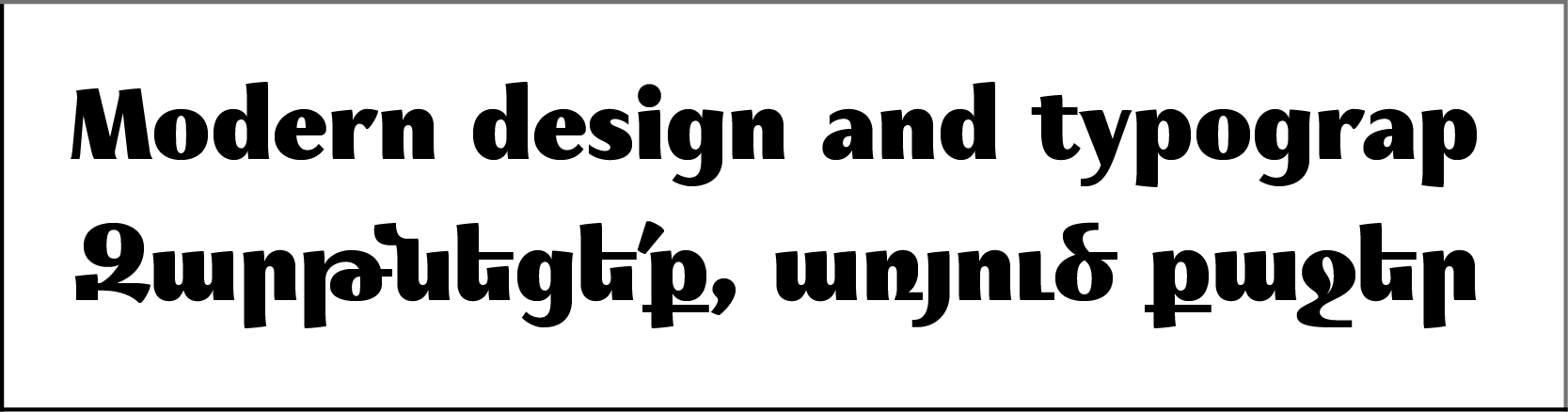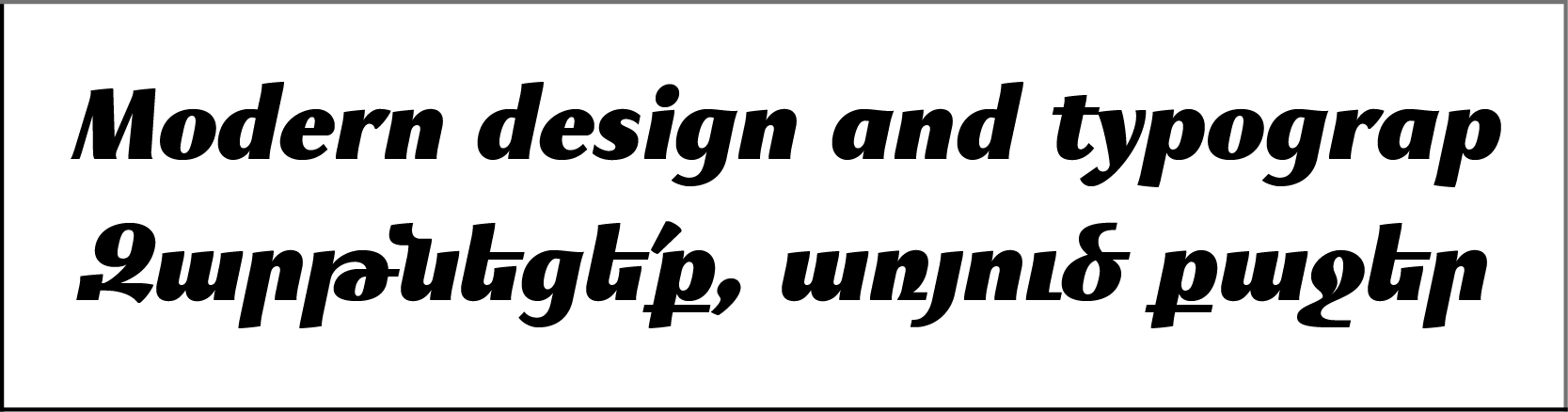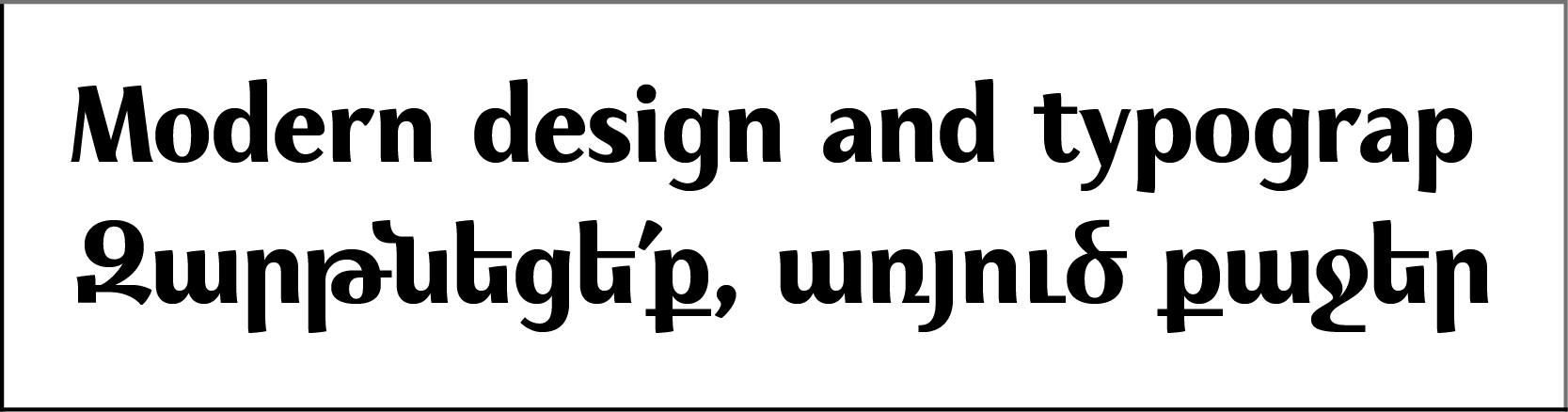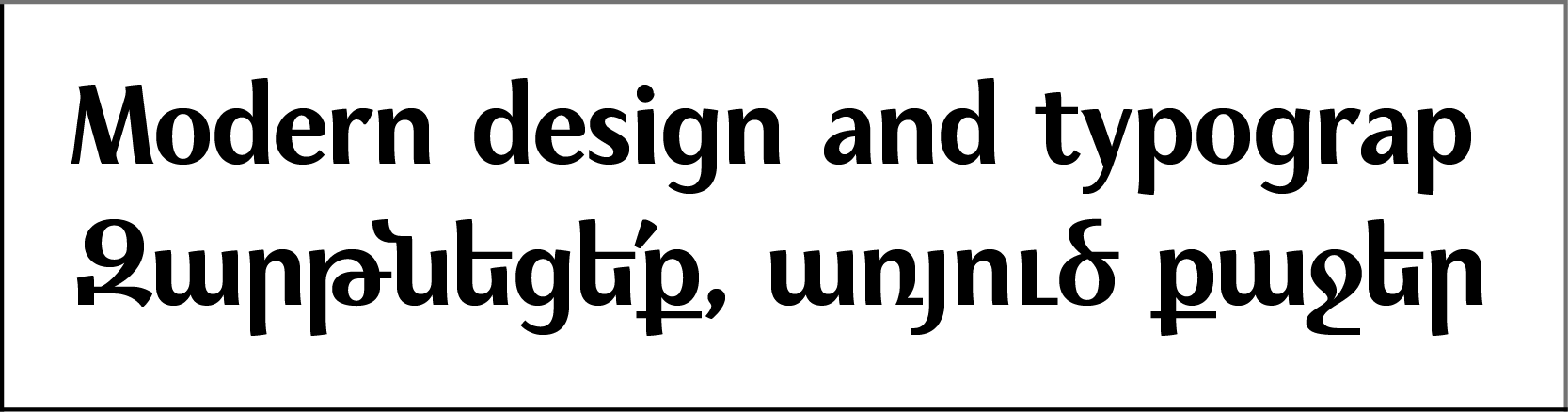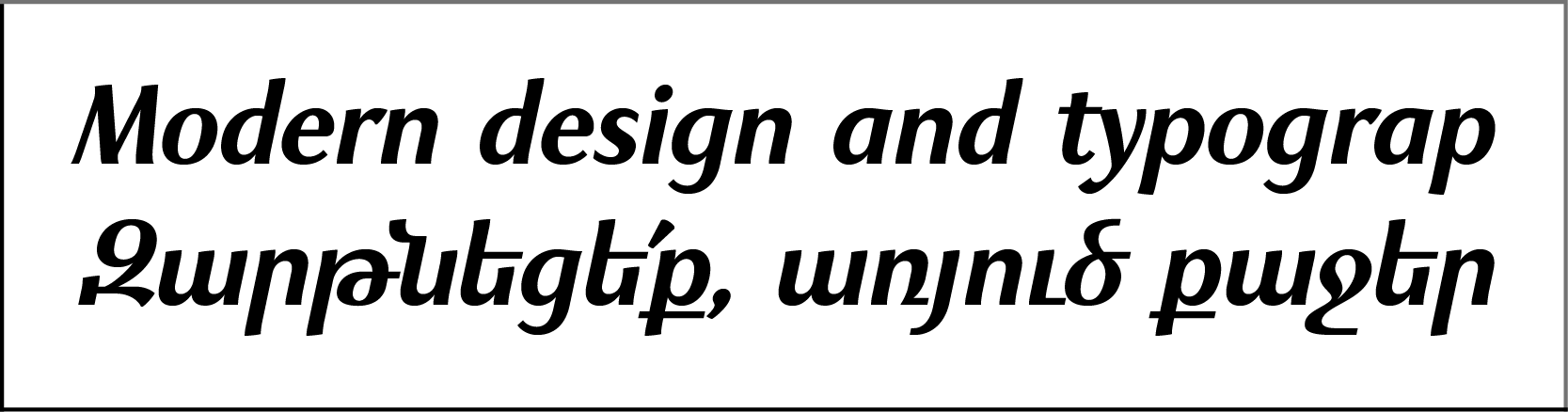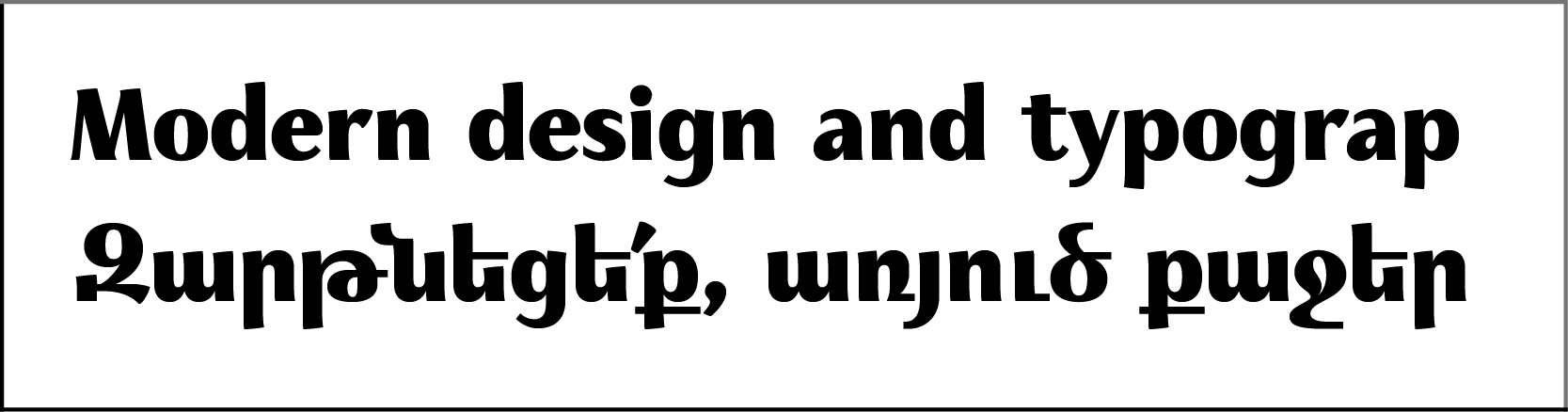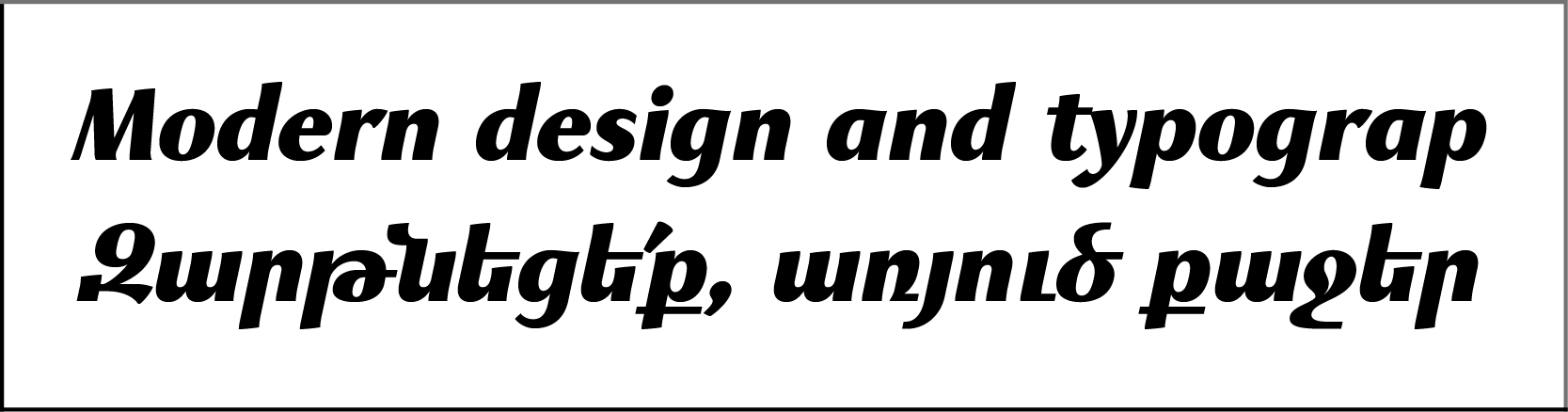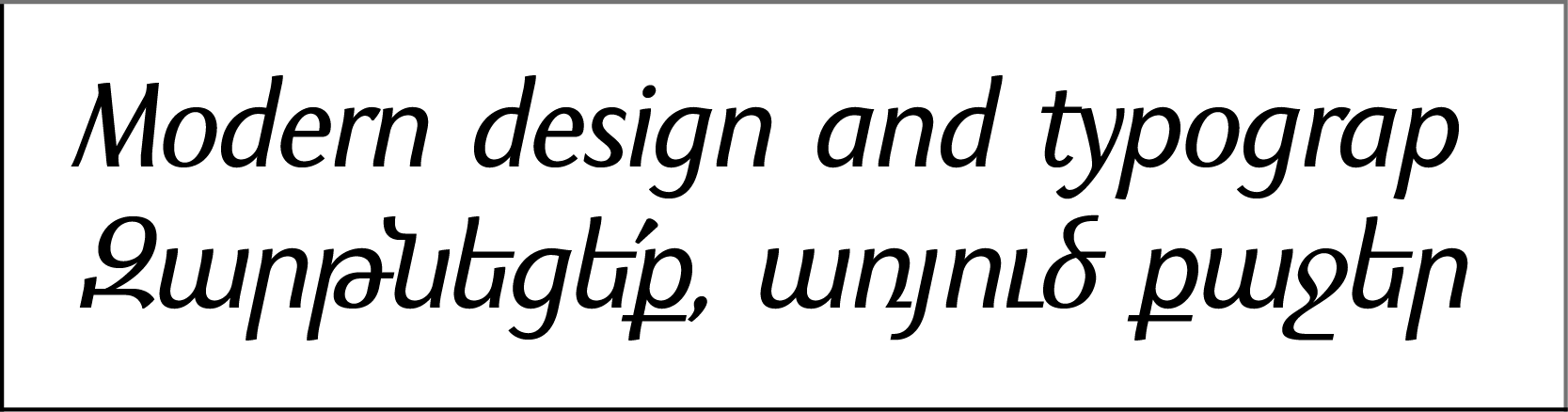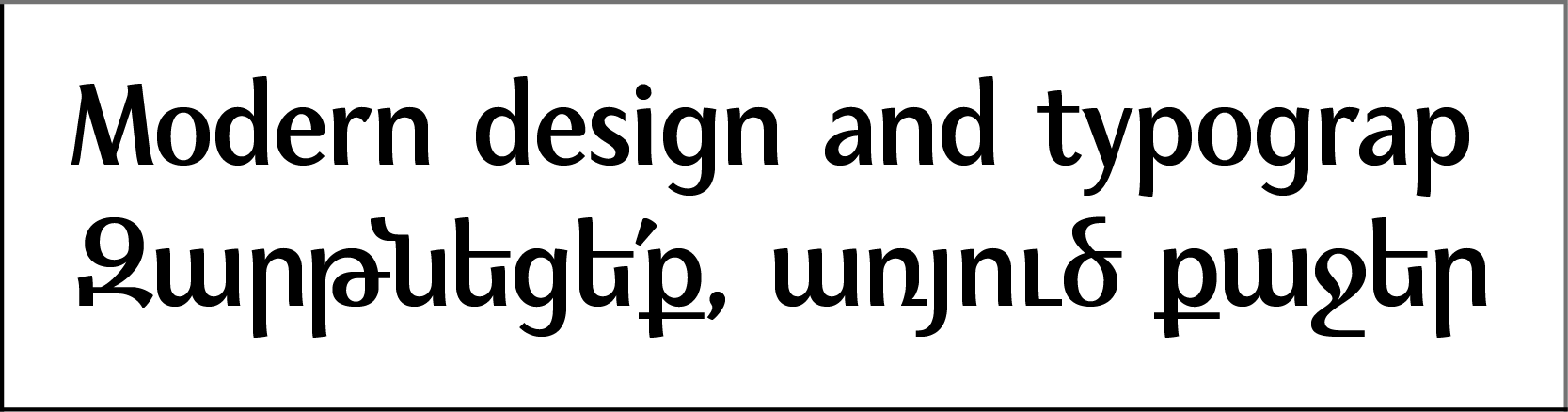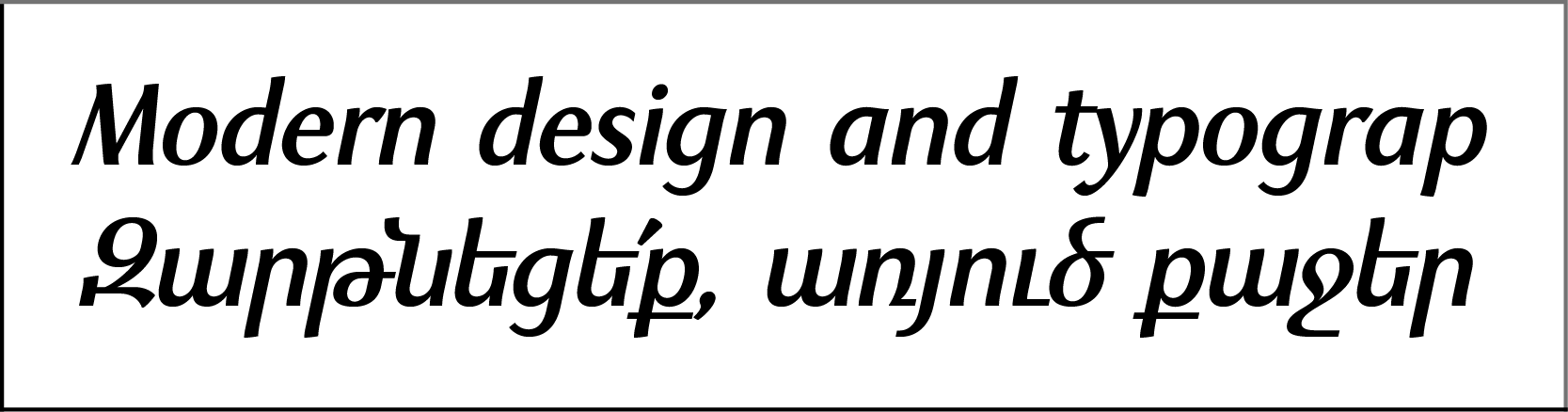
HASH Astghik
Designer: Hrachuhi Grigoryan
Design date: 2013
The font family includes: Armenian and Latin alphabet systems. It has 12 weights:   Regular, Italic, Medium, Medium Italic, DemiBold, DemiBold Italic, Bold, Bold Italic, ExtraBold, ExtraBold Italic, Black, Black Italic.
This font can be used as display and text font.